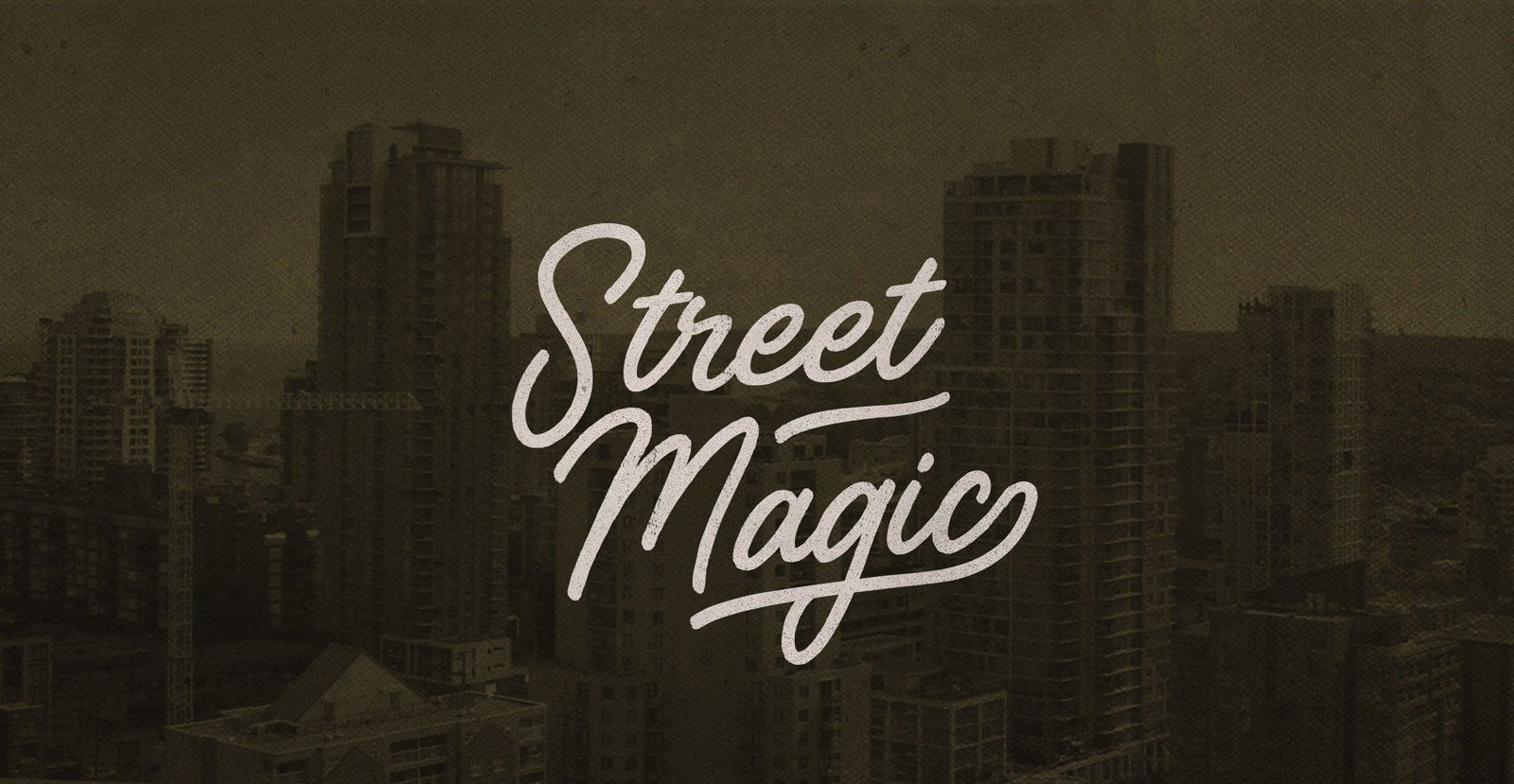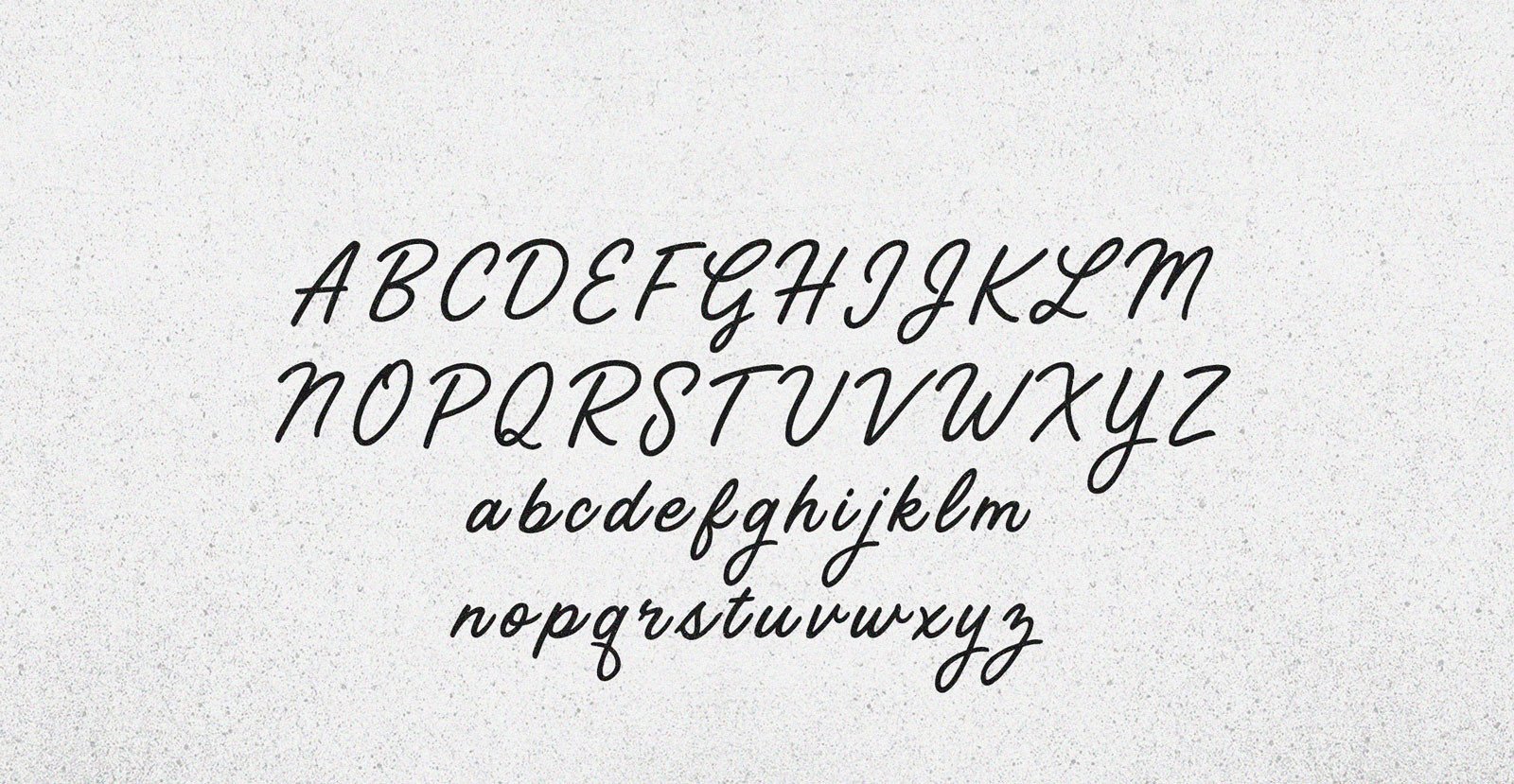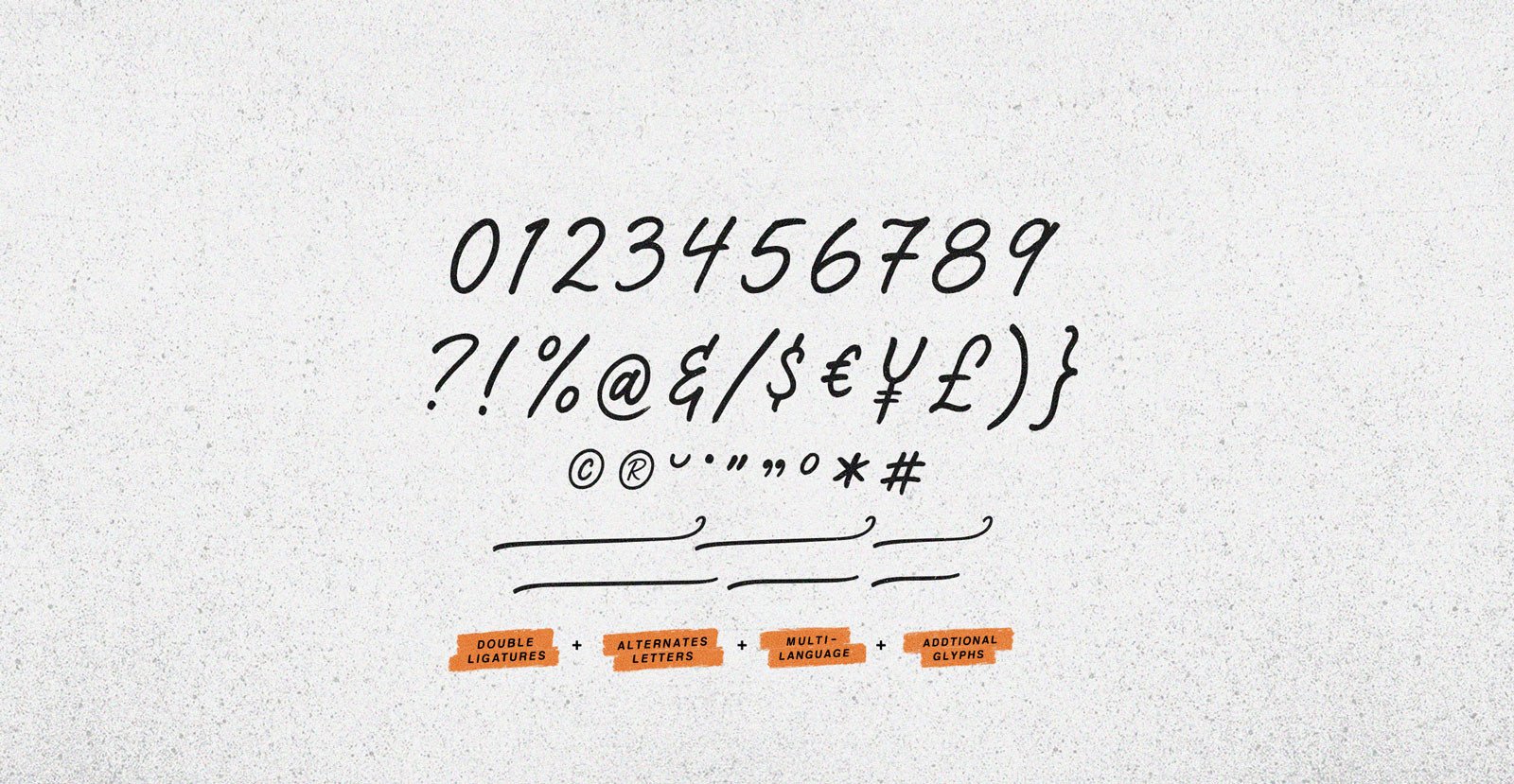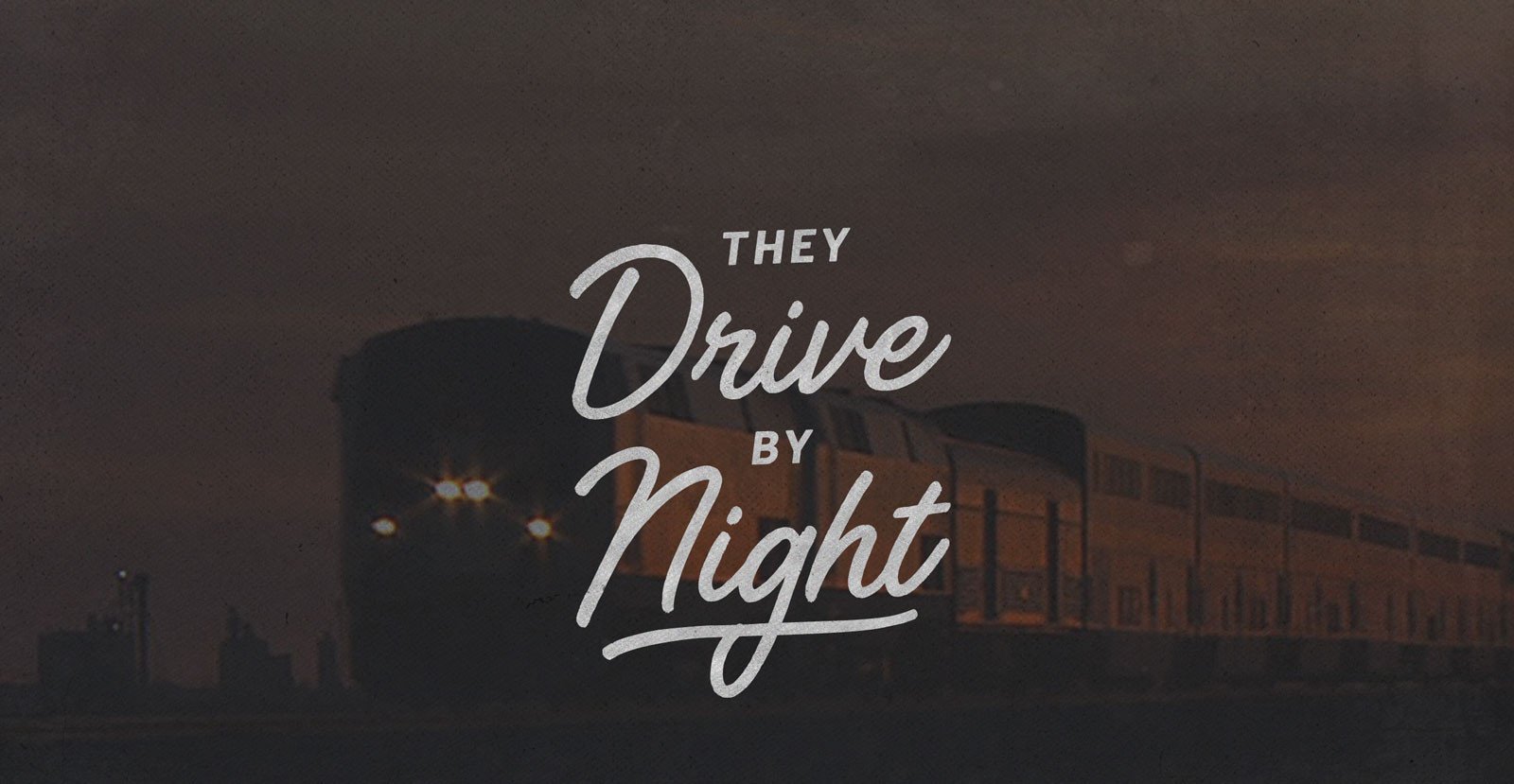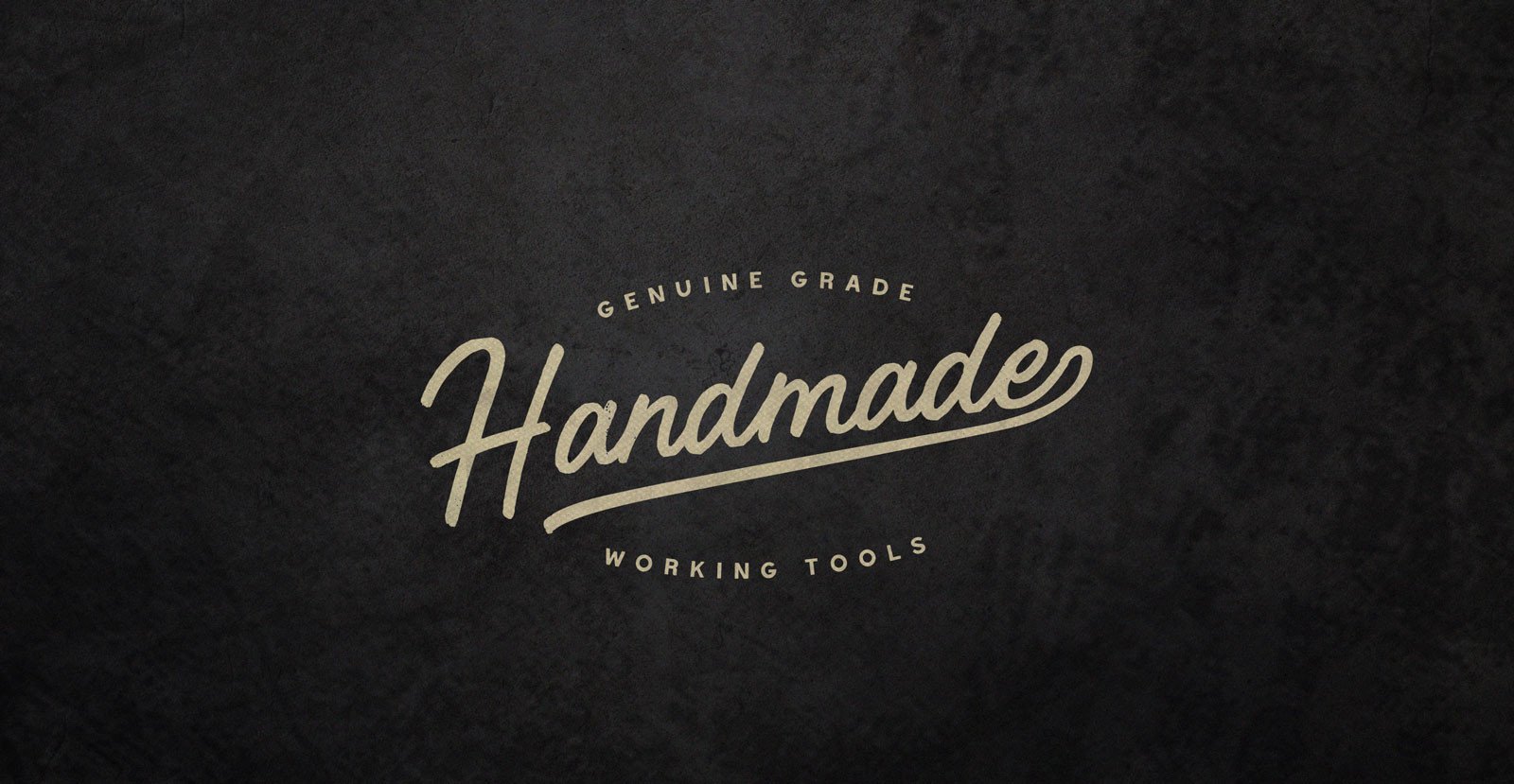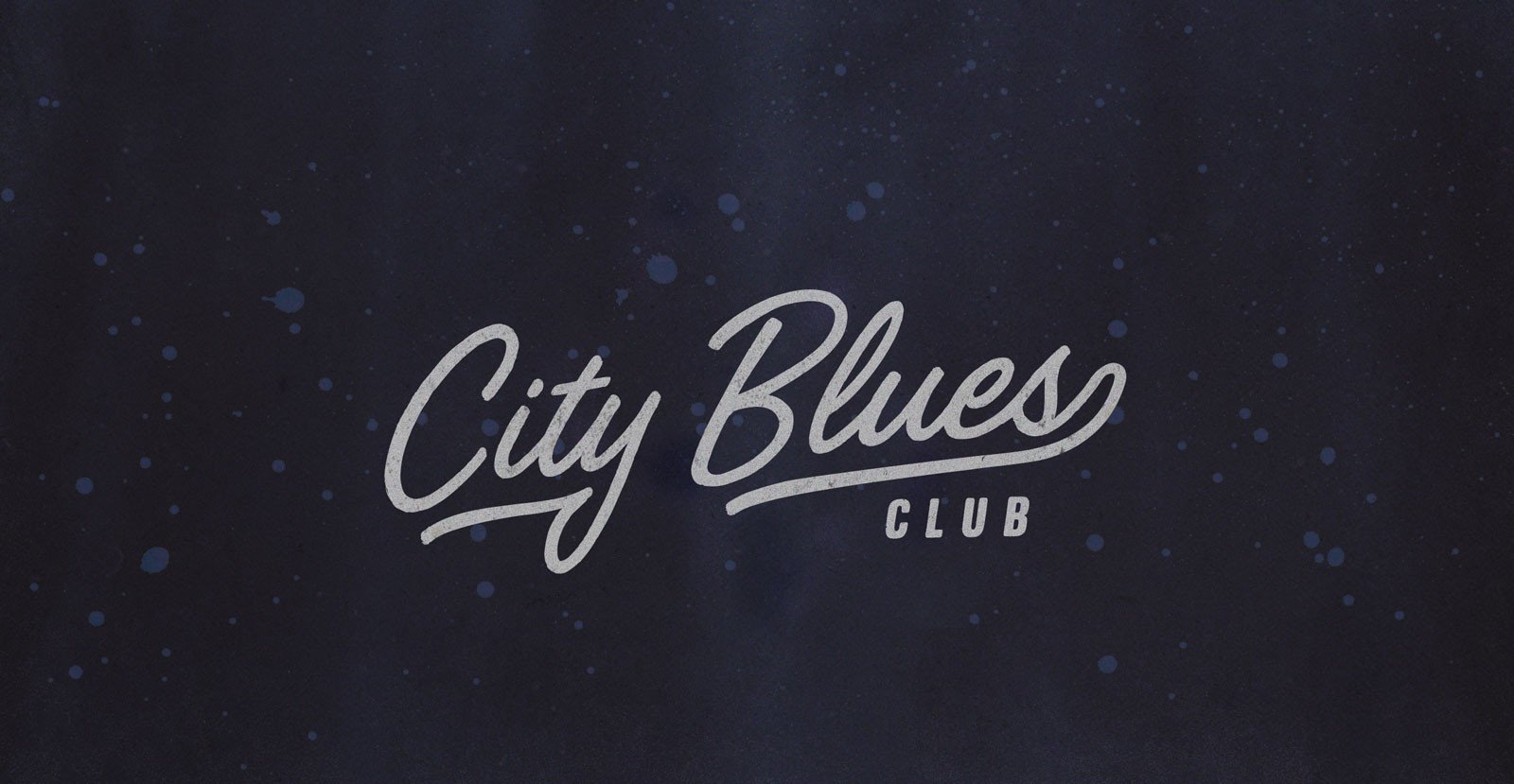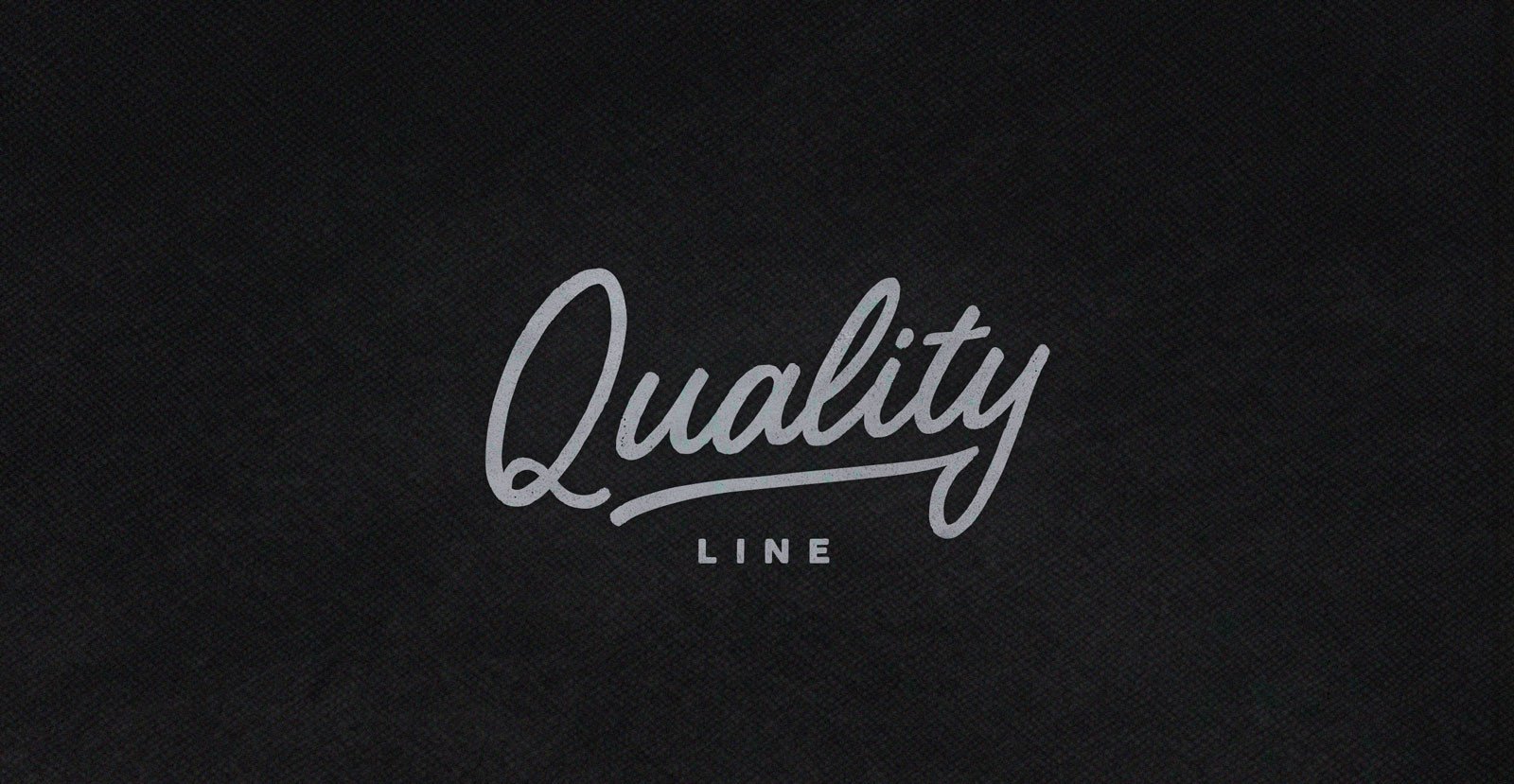
Street Magic
Levitating above the din of the city pulling cards. Conjuring a shine from the dark like iridescent paint. Trees growing through cracked pavement claiming space with their placement. Street Magic at work while we kick back and embrace it.